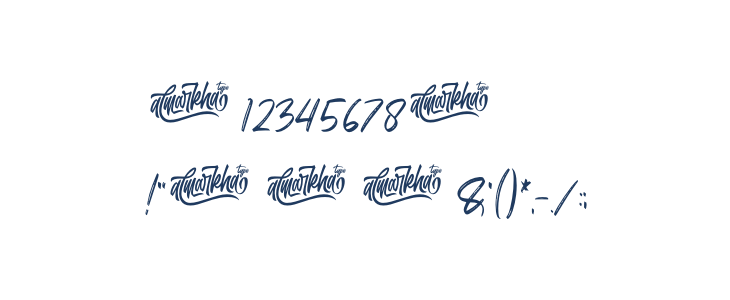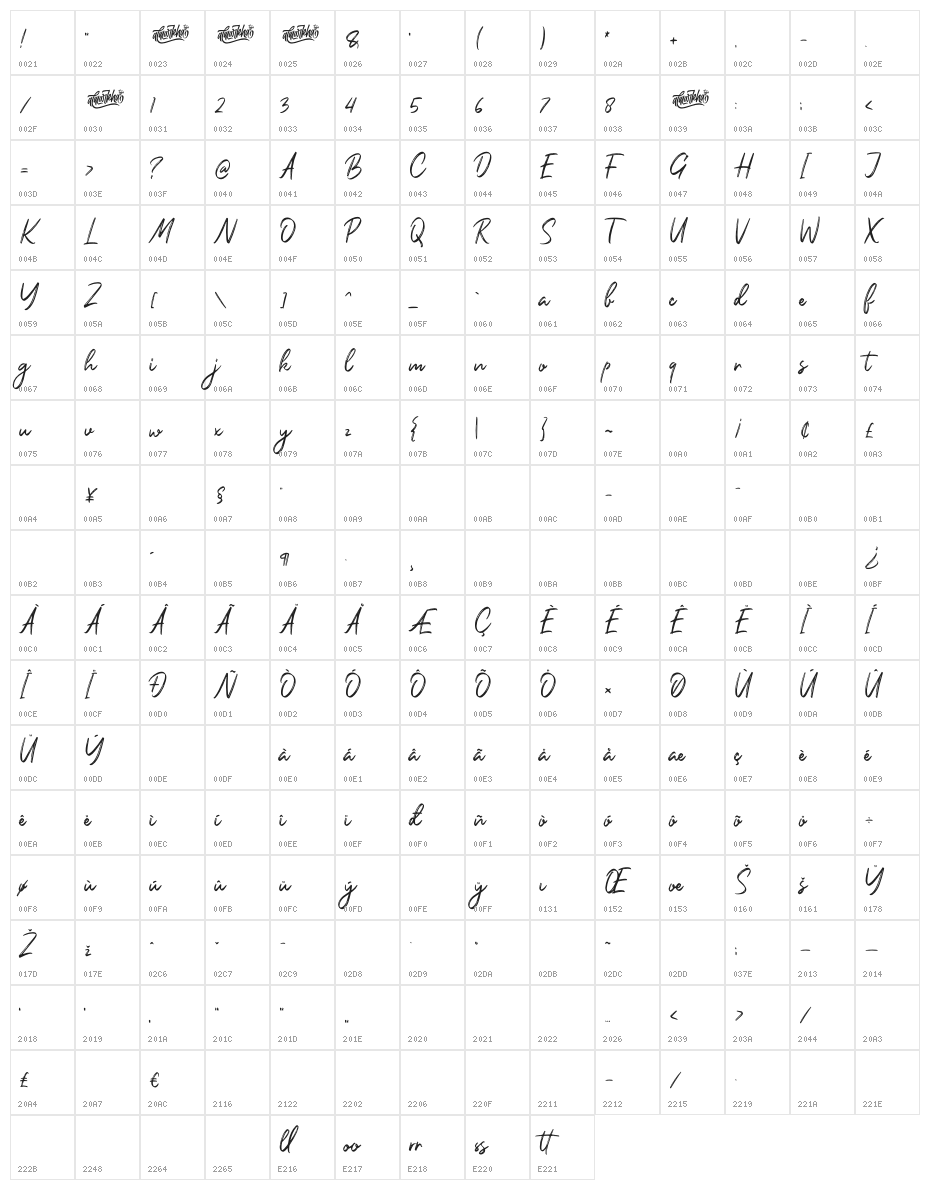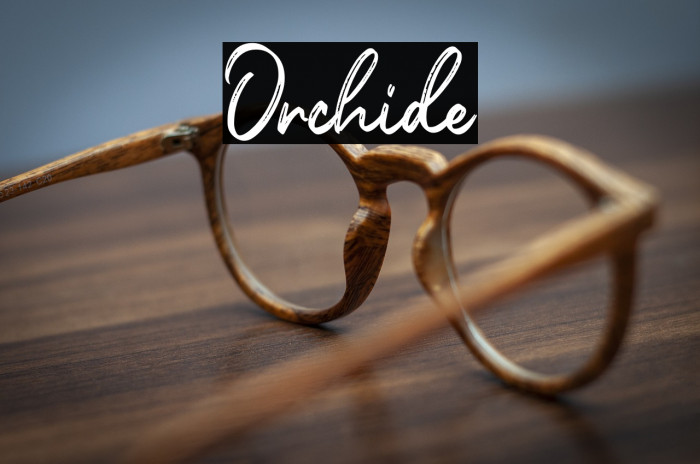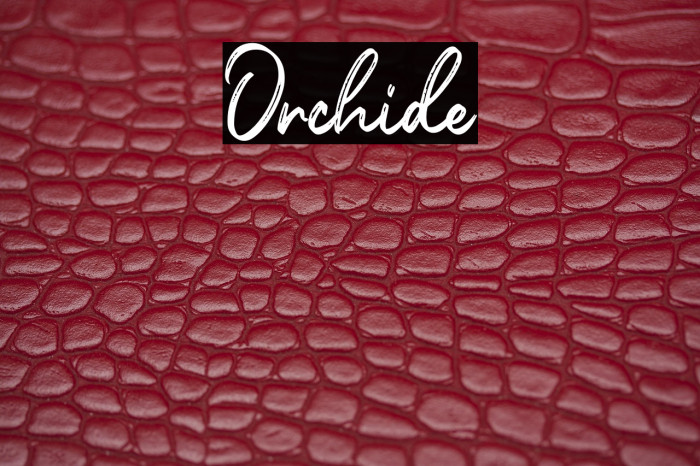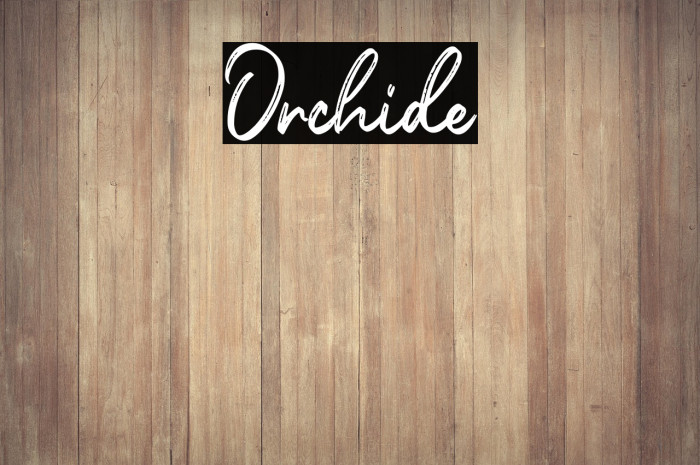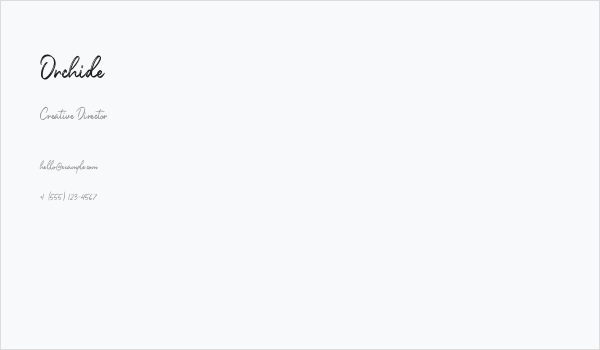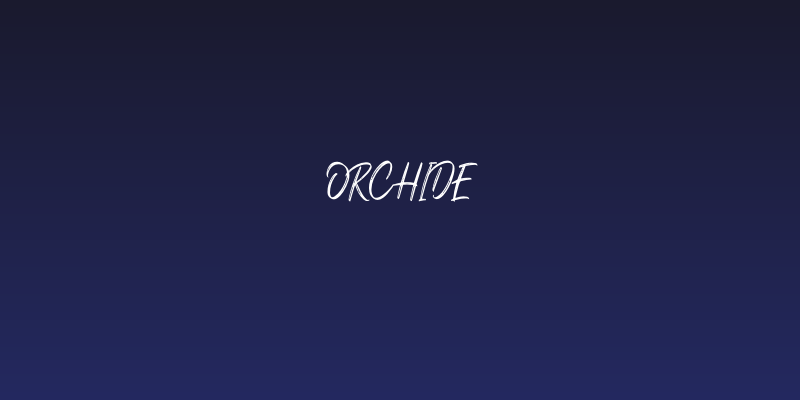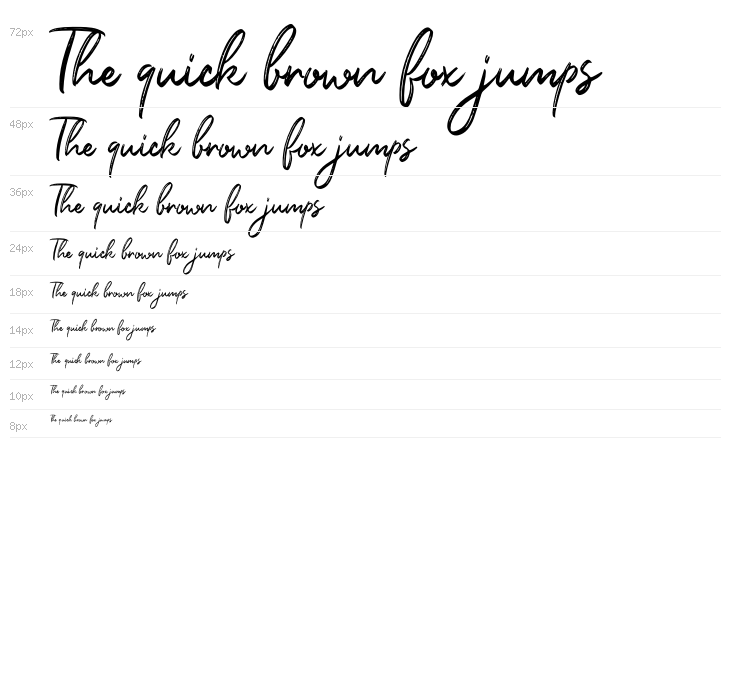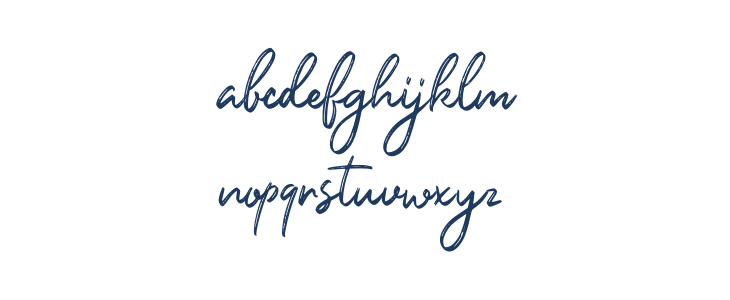
Orchide Font
Orchide Description
This font features a dynamic and expressive script style, characterized by its fluid and cursive letterforms. The uppercase letters are bold and slightly slanted, adding a sense of movement and elegance. The lowercase letters maintain a consistent flow, with smooth connections between each character, enhancing the overall readability. Numbers and special characters are designed to complement the script style, maintaining the same fluidity and artistic flair. This font exudes a sense of creativity and personal touch, making it ideal for projects that require a handwritten or artistic feel.